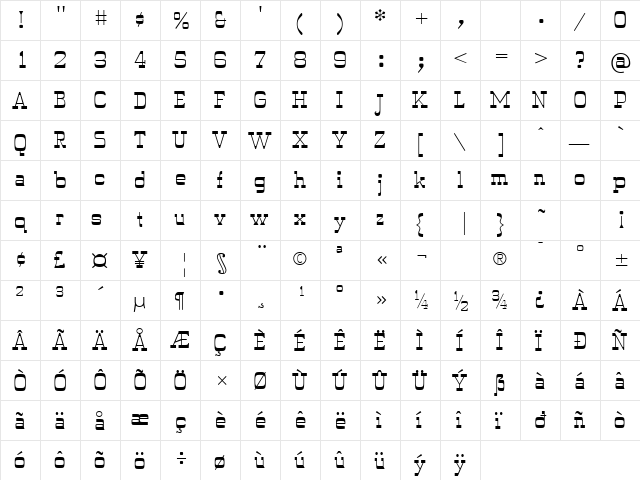
WyomingPastad Regular
Design Context for WyomingPastad Typeface
WyomingPastad takes a measured approach to typography — its balanced proportions and neutral character make it a reliable workhorse for both digital and print work.